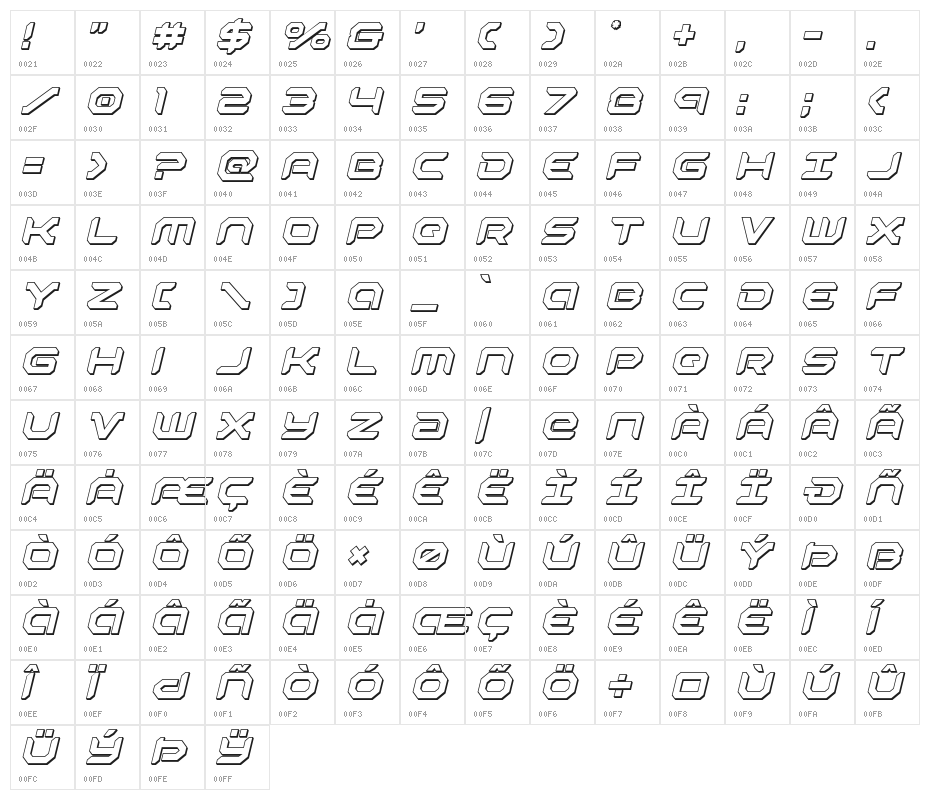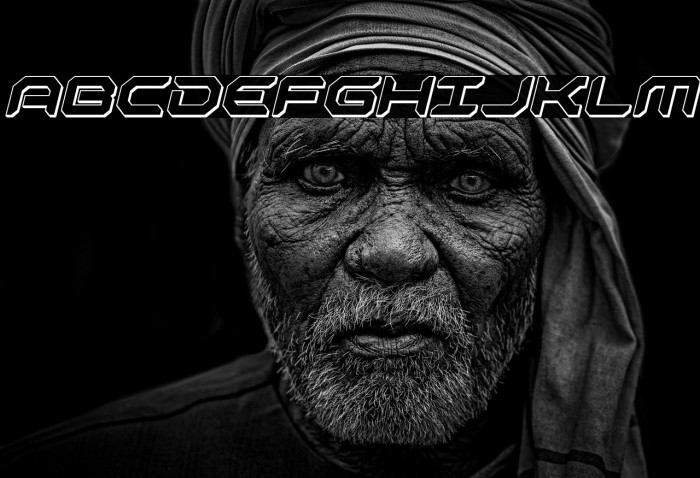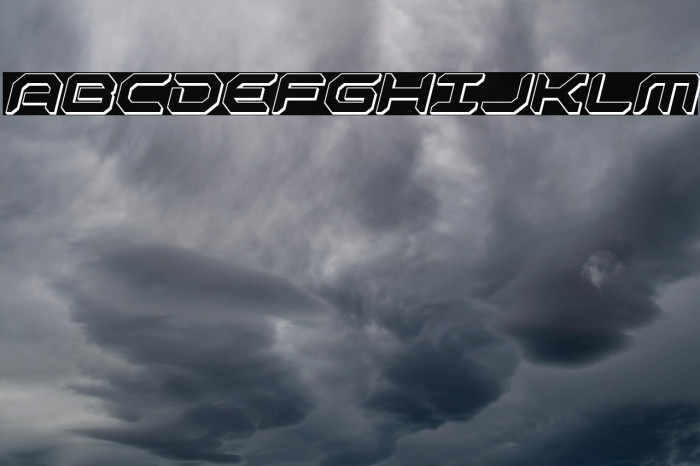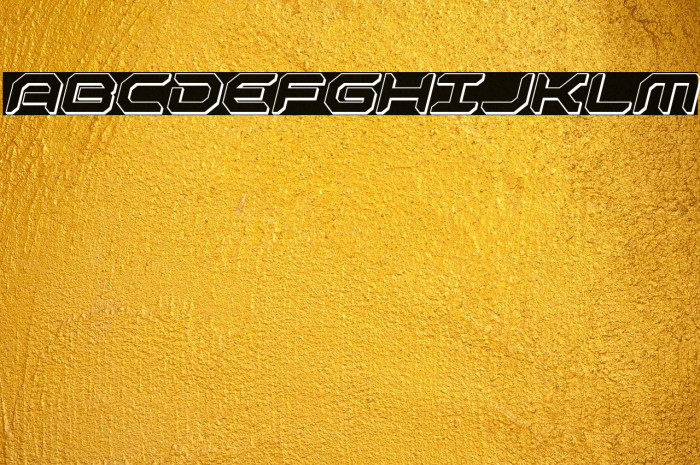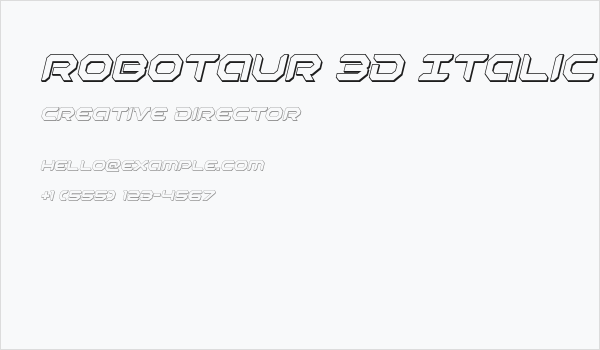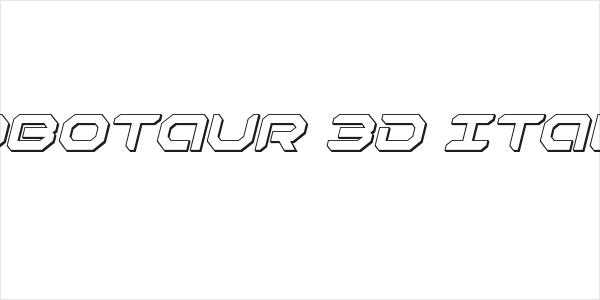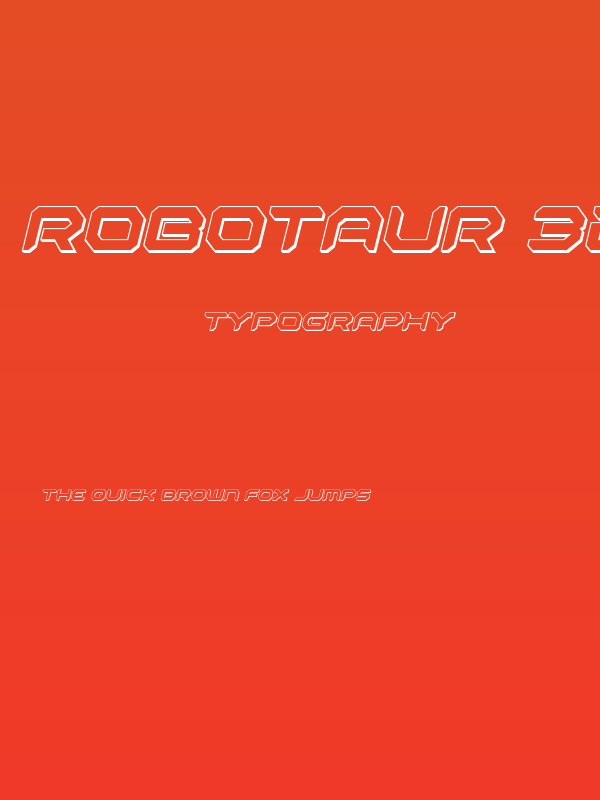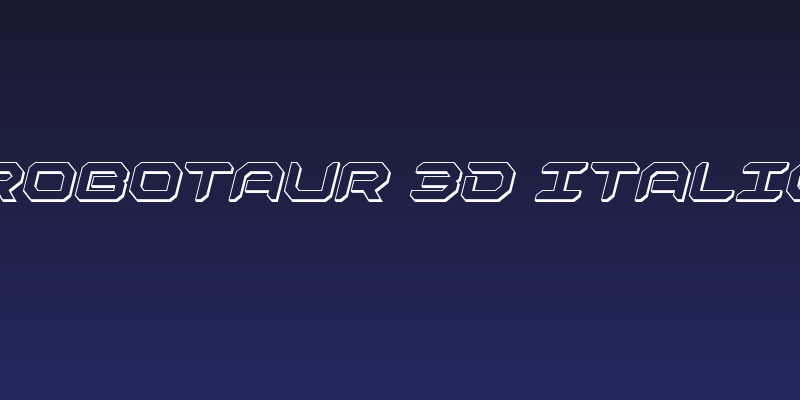
Robotaur 3D Italic Font
Robotaur 3D Italic Description
This font features a futuristic and angular design, characterized by its bold, three-dimensional appearance. The letters are outlined with a distinct shadow effect, giving them a dynamic and modern look. The italicized slant adds a sense of motion and speed, making it ideal for projects that require a cutting-edge and tech-savvy aesthetic. The uppercase and lowercase letters maintain a consistent style, with geometric shapes and sharp edges. The numerals and special characters follow the same design principles, ensuring a cohesive visual experience across all text elements.
| Proposed Projects | Ideal for tech branding, video game titles, sci-fi posters, and futuristic product packaging. |